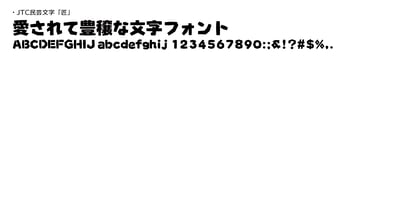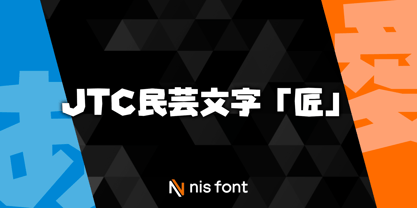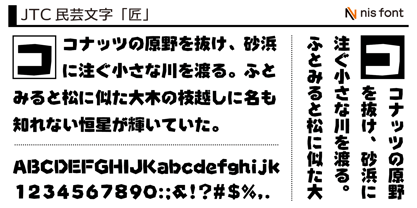
OT-NIS_TAK
We have expressed the simplicity and charm of traditional folk toys passed down in various regions. Note: This typeface supports the JIS2004 character set.